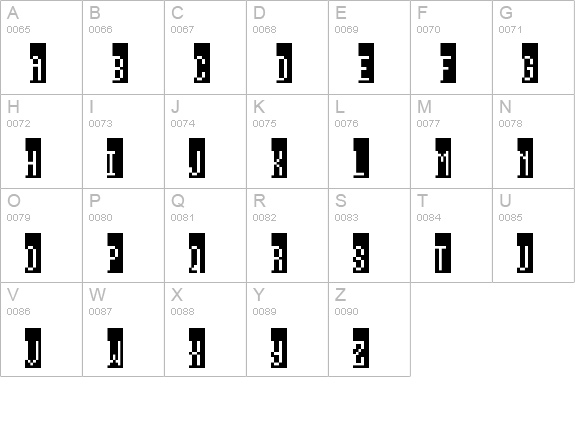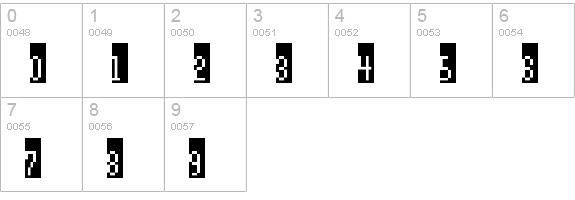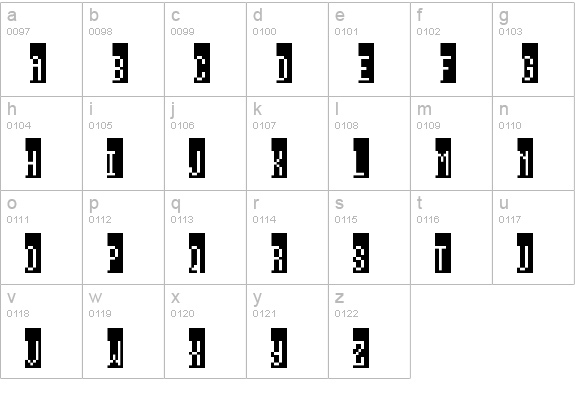
Way beyond blue font is a stunning display typeface that will take your design projects to new horizons. With its elegant and intricate letterforms, this font is sure to captivate any audience. Its unique design features sharp, angular edges that give it a modern and edgy feel. But what sets Way beyond blue font apart is not just its aesthetic appeal, but also its versatility. This font can be used for a wide range of design projects, from logos and branding to posters and social media graphics. Its bold and striking appearance will make your message stand out and leave a lasting impression. And the best part? Way beyond blue font is completely free! Yes, you read that right. This amazing font is freely available to download at FontsMarket.com. Now, you don't have to worry about breaking the bank to enhance your designs with a professional and eye-catching typeface. So why wait? Go ahead and download Way beyond blue font today and let your creativity soar. Whether you're a graphic designer, a marketer, or simply someone who loves typography, this font is a must-have in your collection. Don't miss out on the opportunity to elevate your designs with this incredible free font.